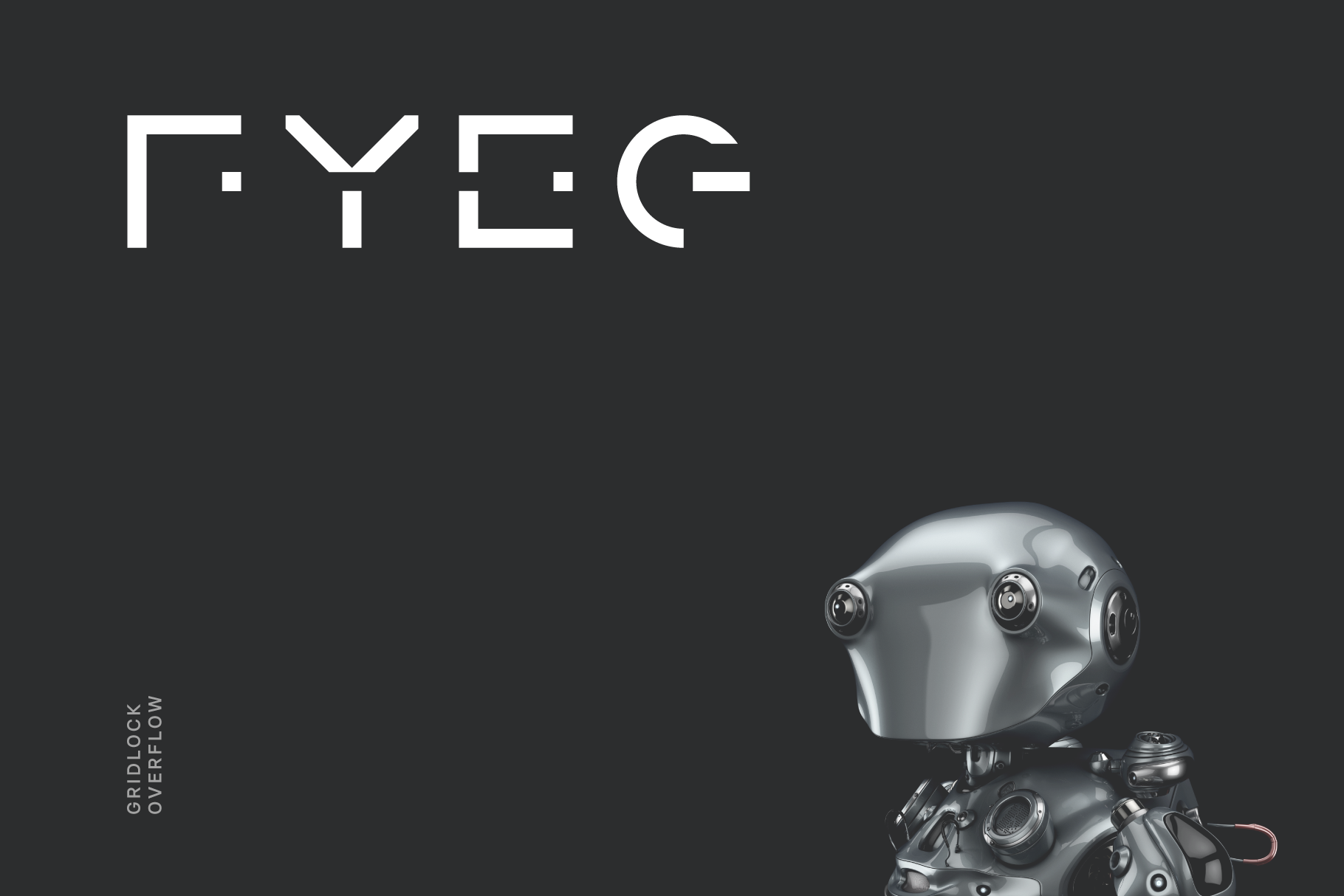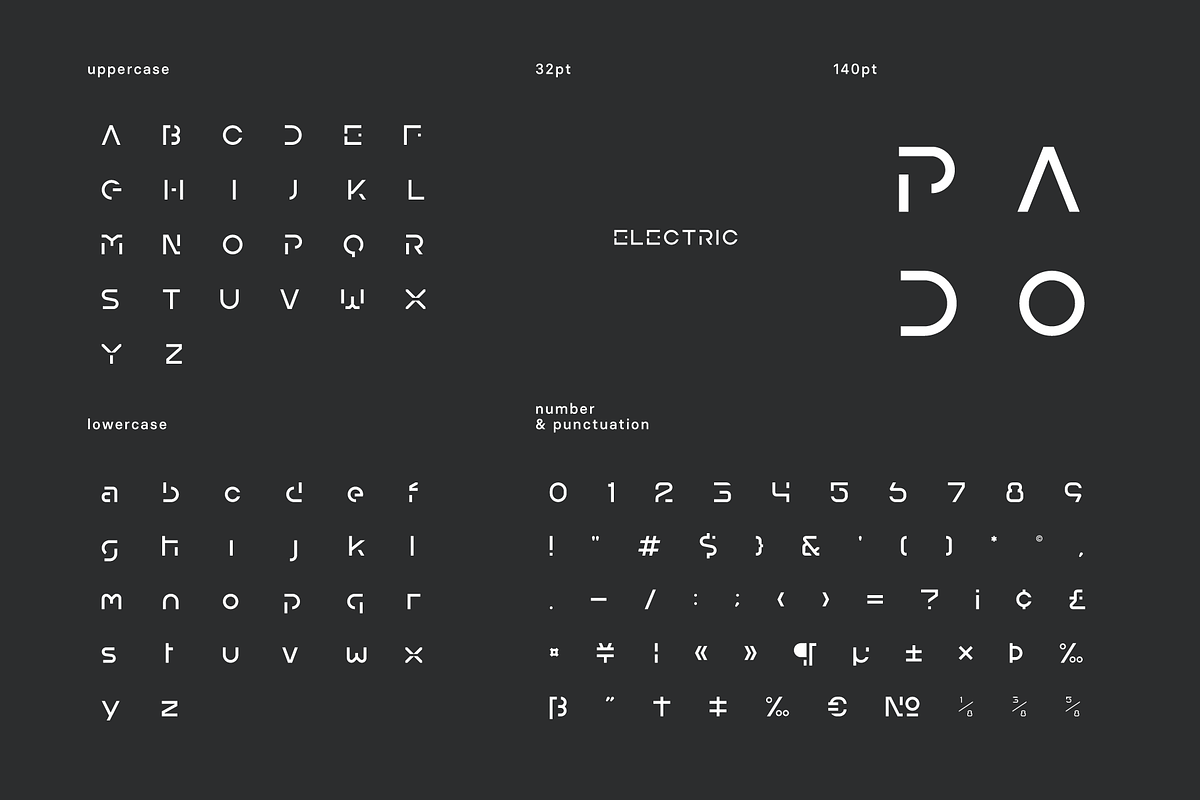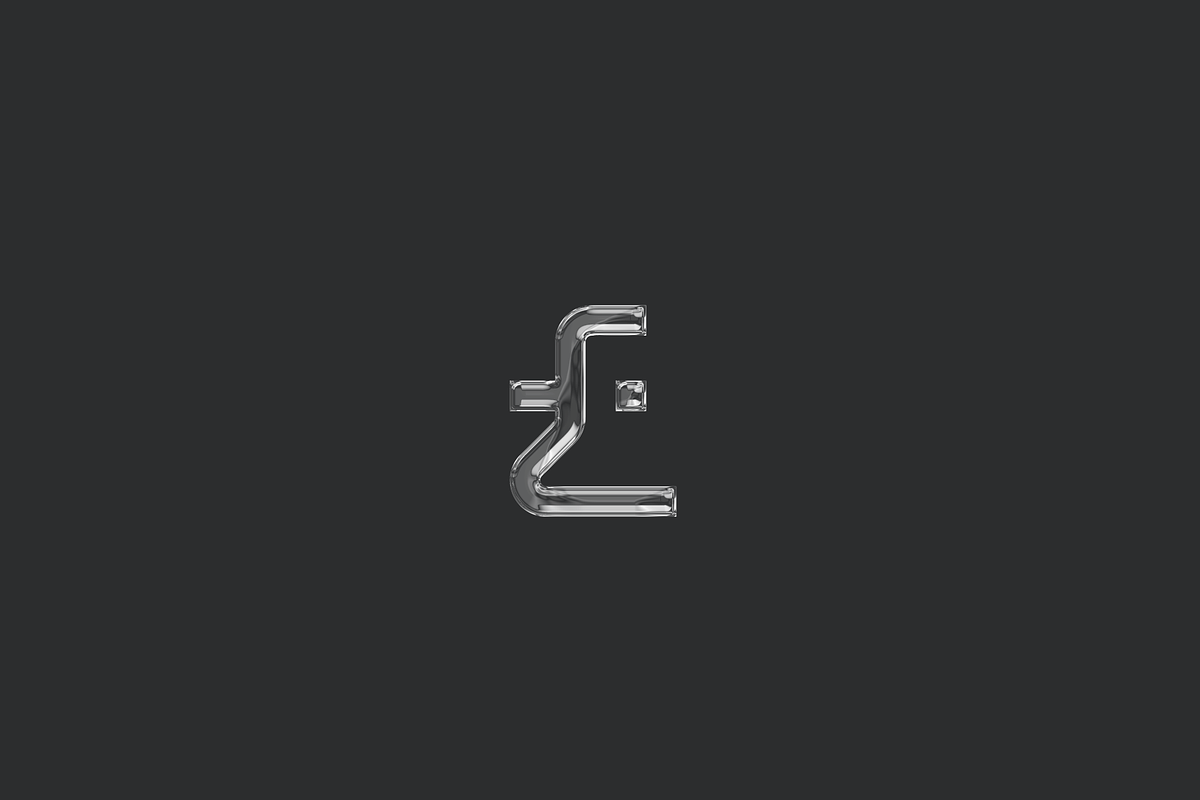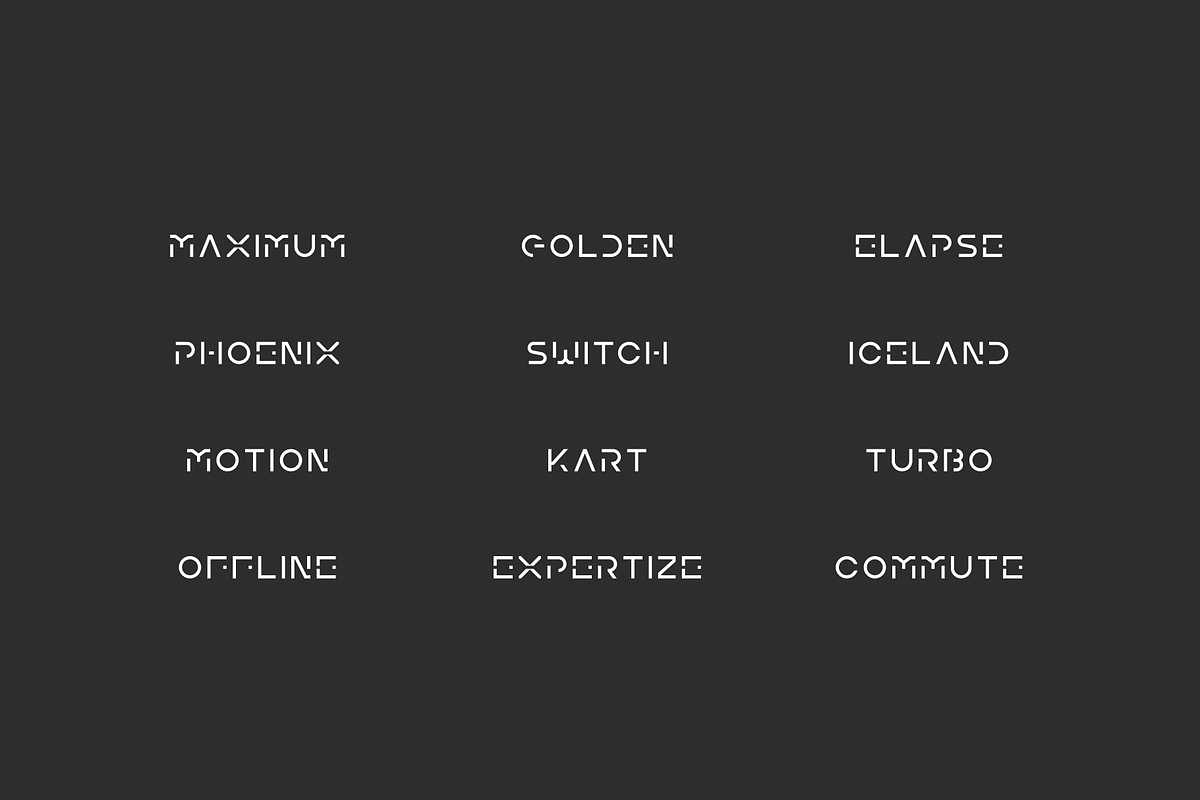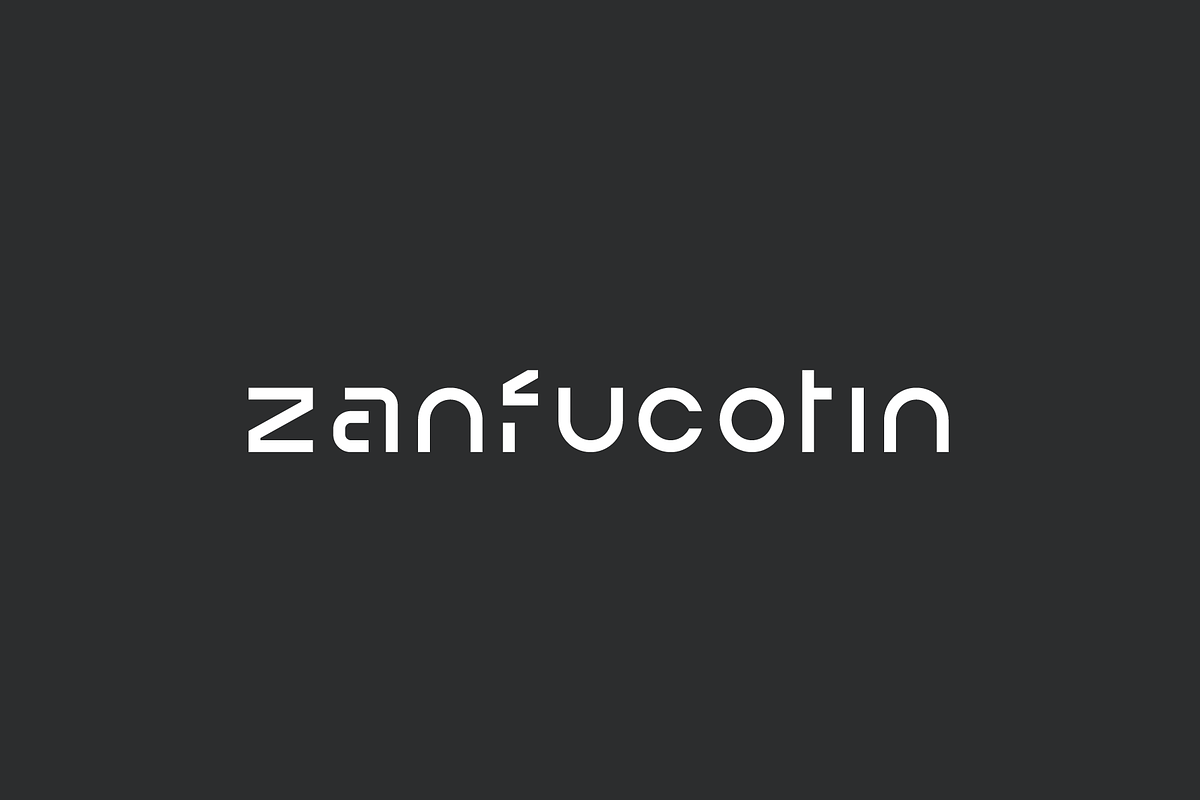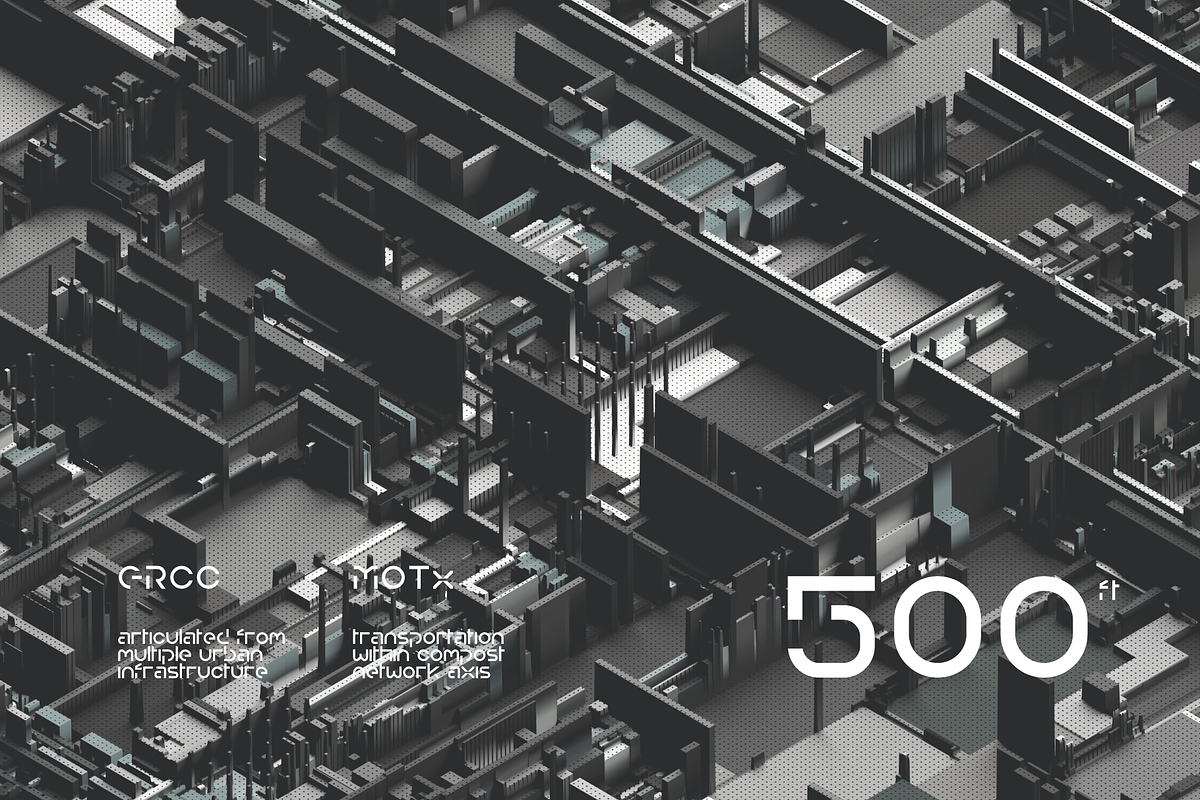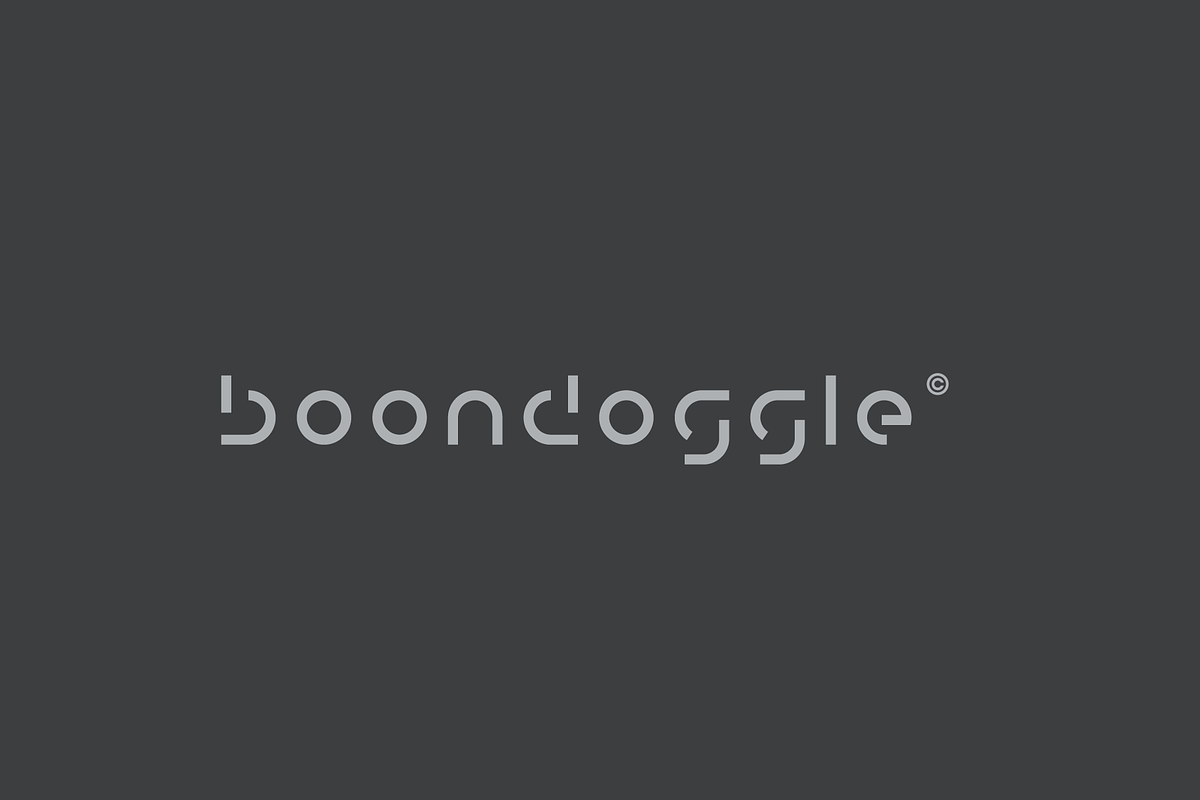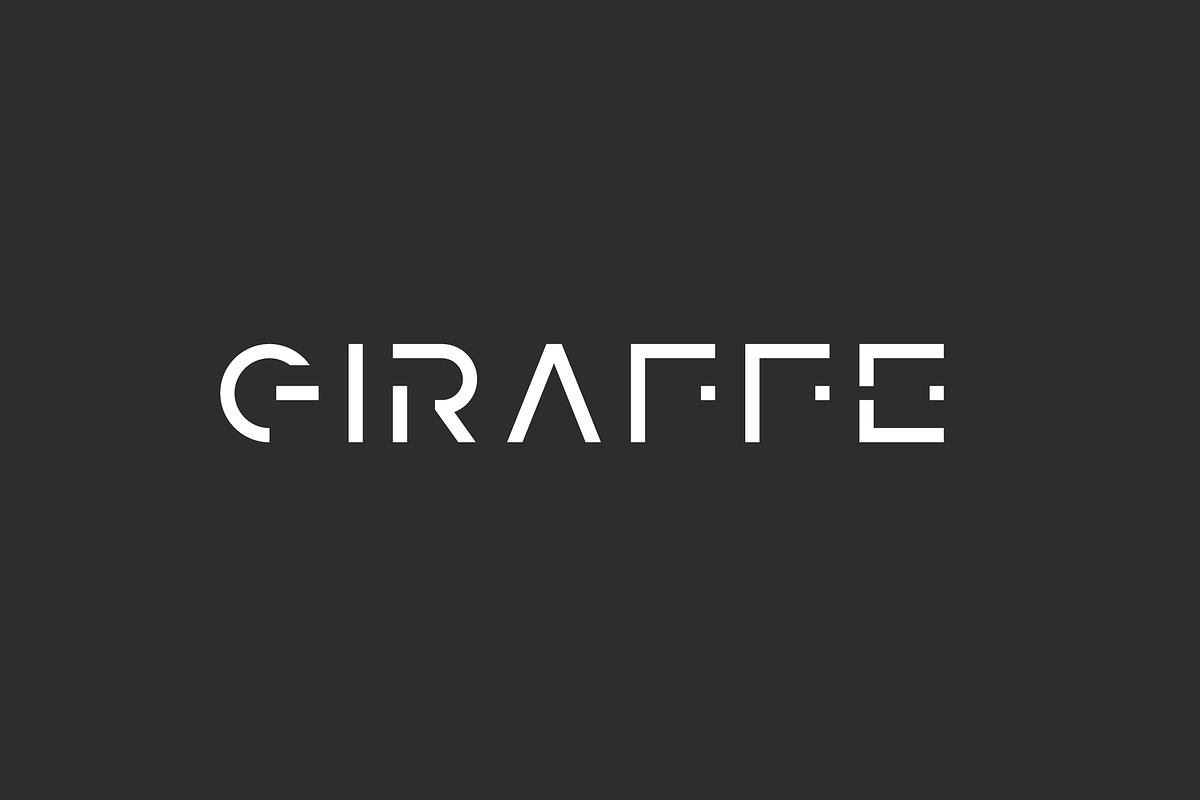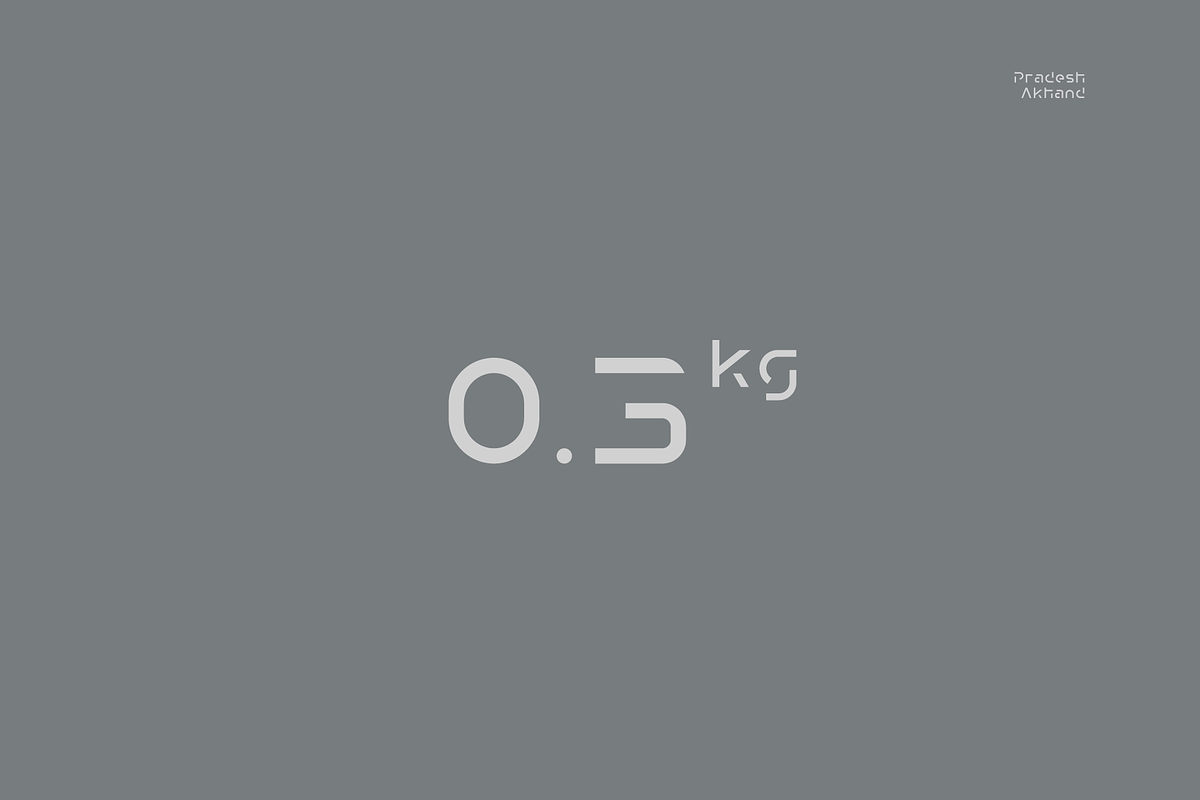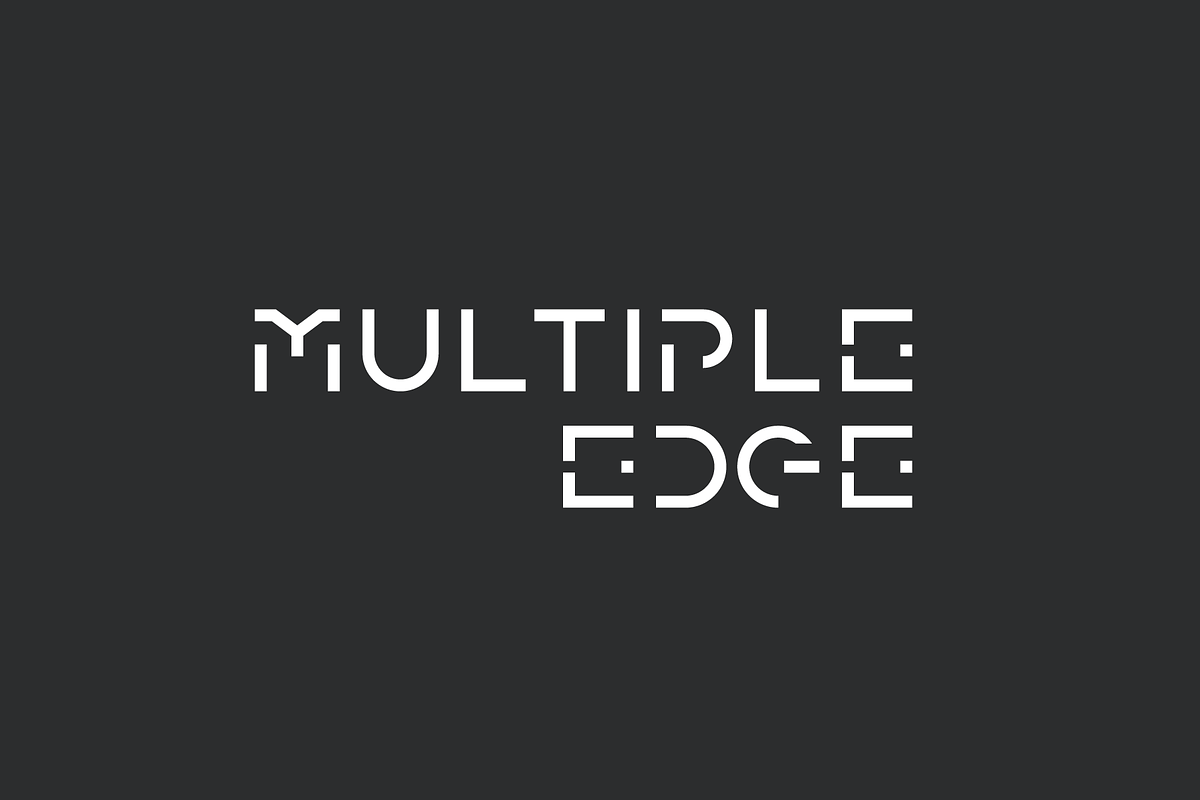
Fyeg Futuristic Tech Font
Fyeg is a gridlock overflow tech sans apt for headline, editorial, branding, packaging, printed materials and typographic applications. 150+ glyphs with ligatures and fractions provided in opentype .otf and .woff format.